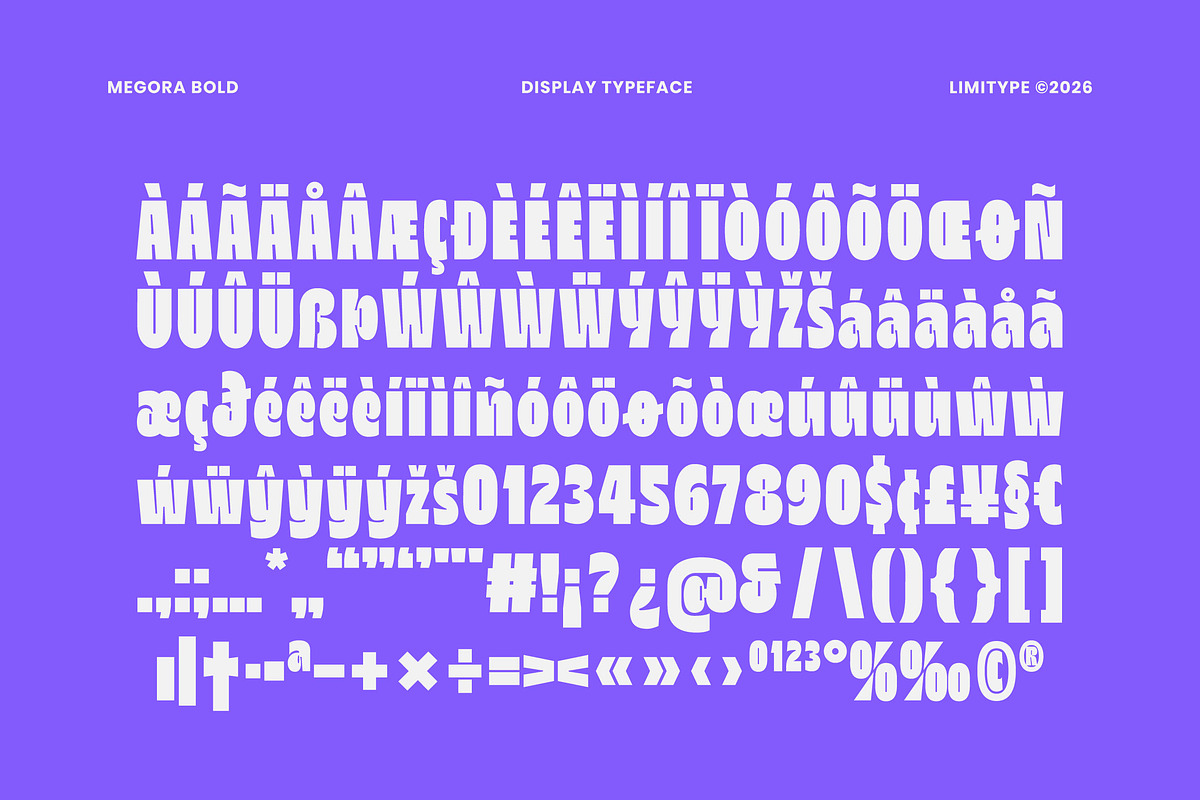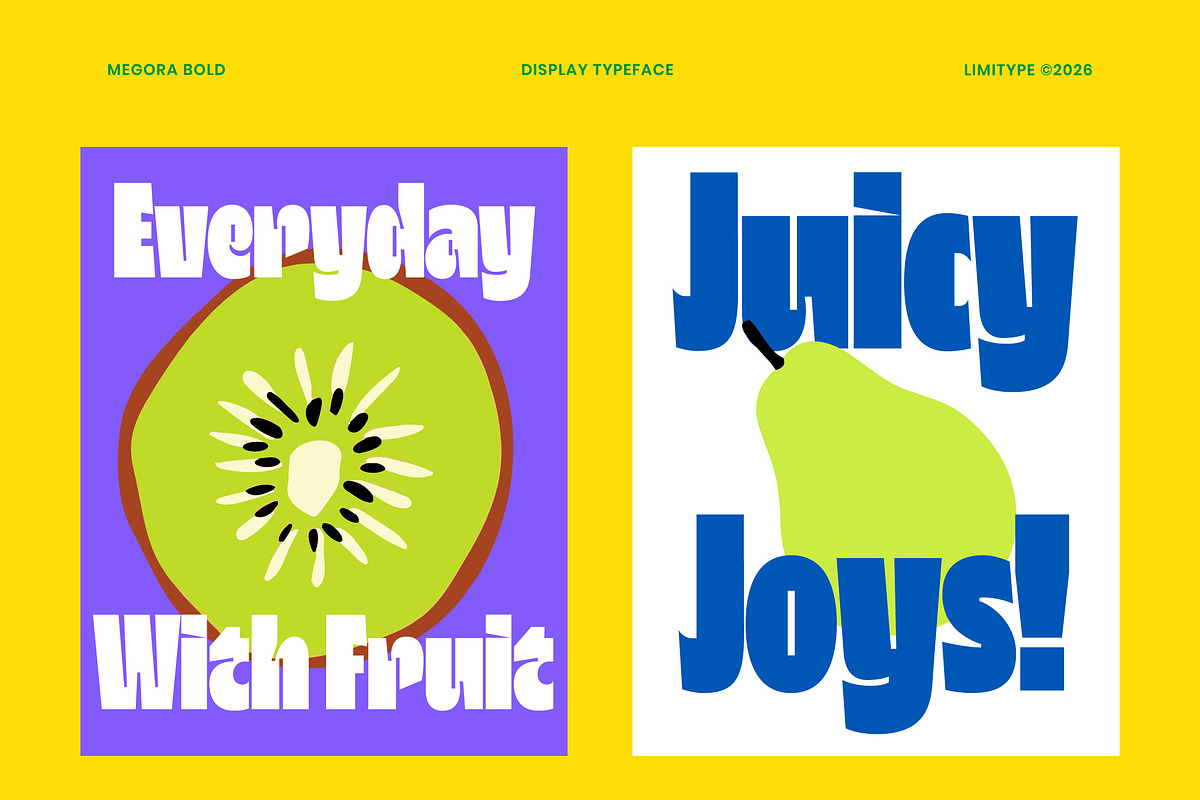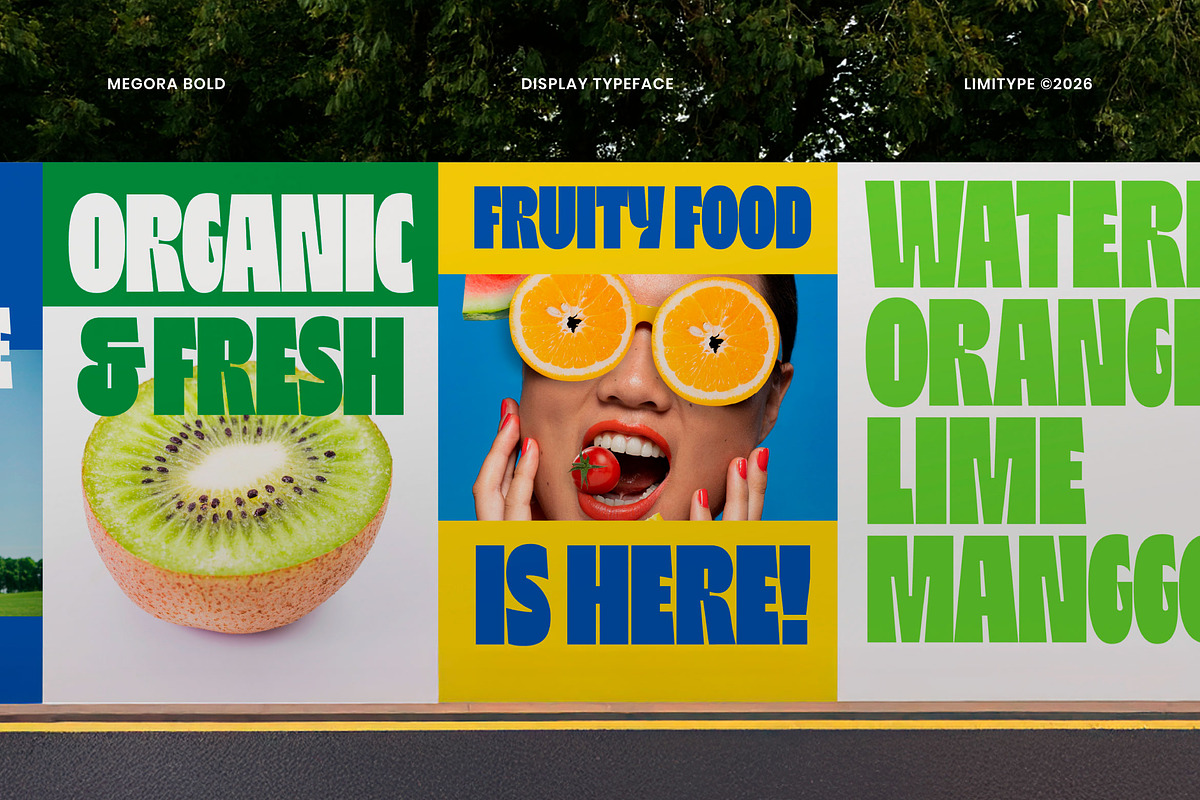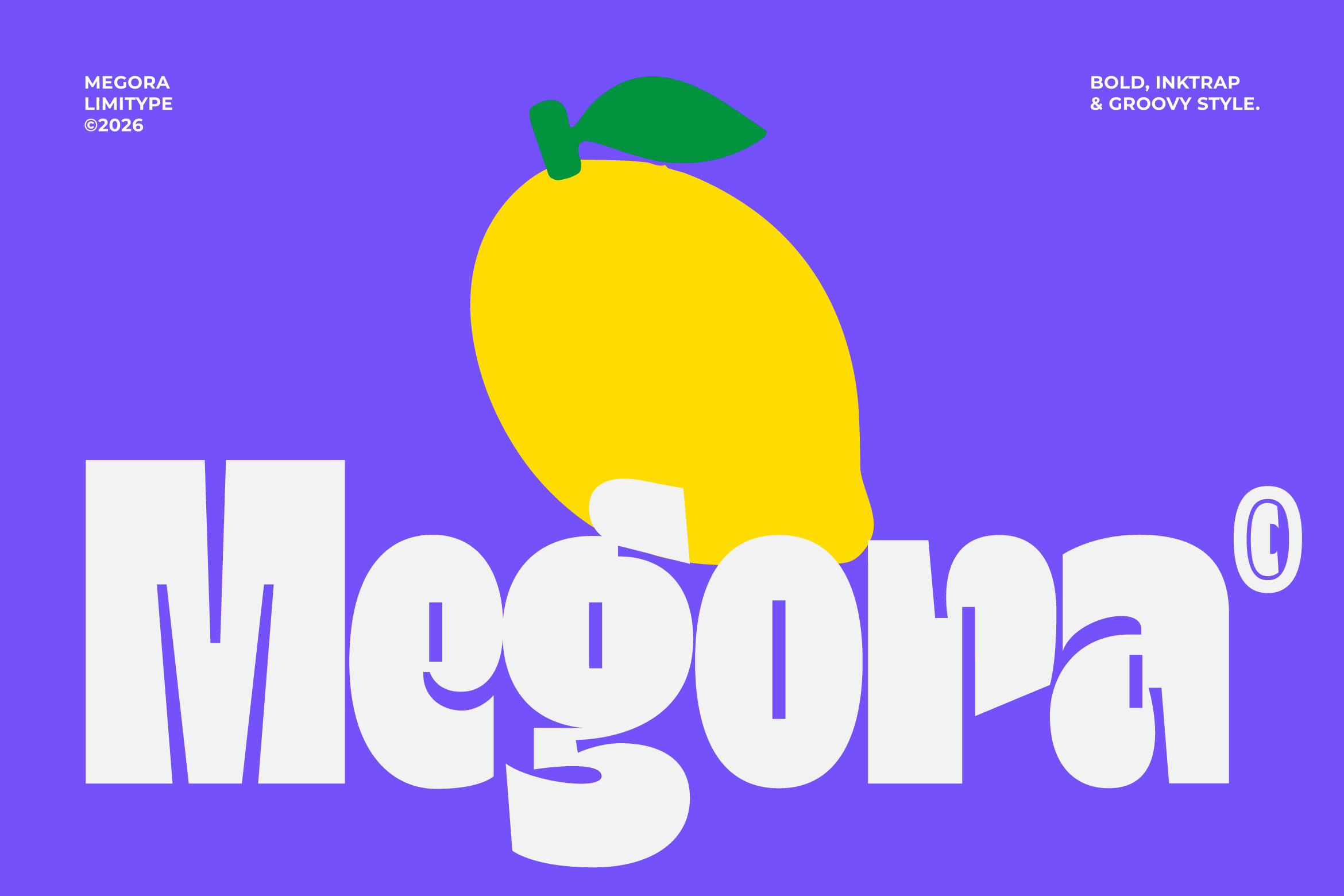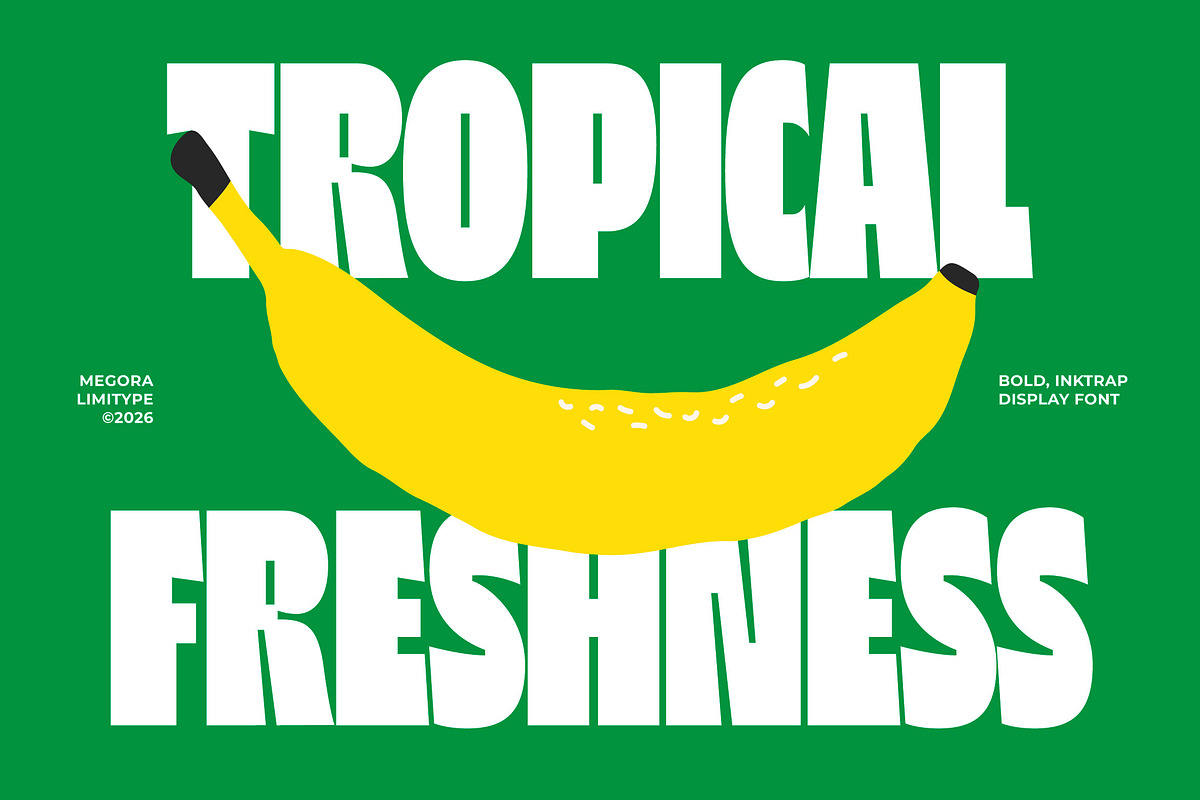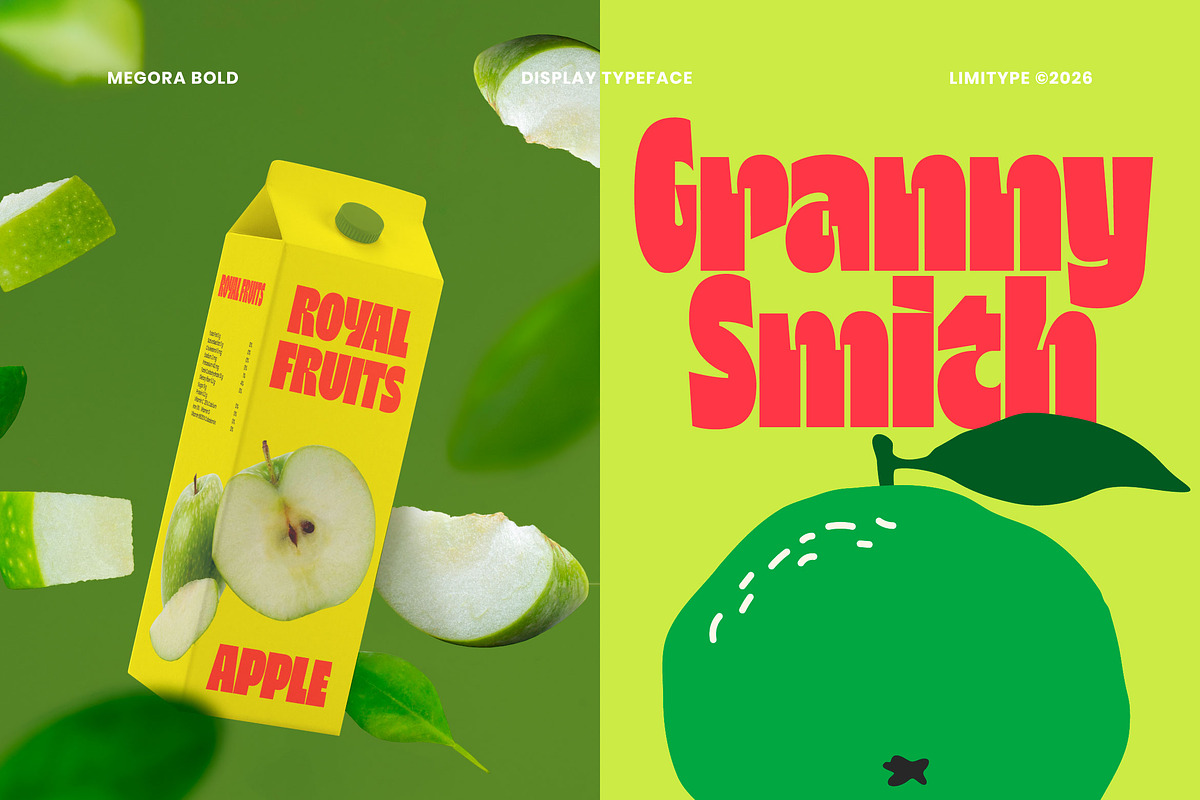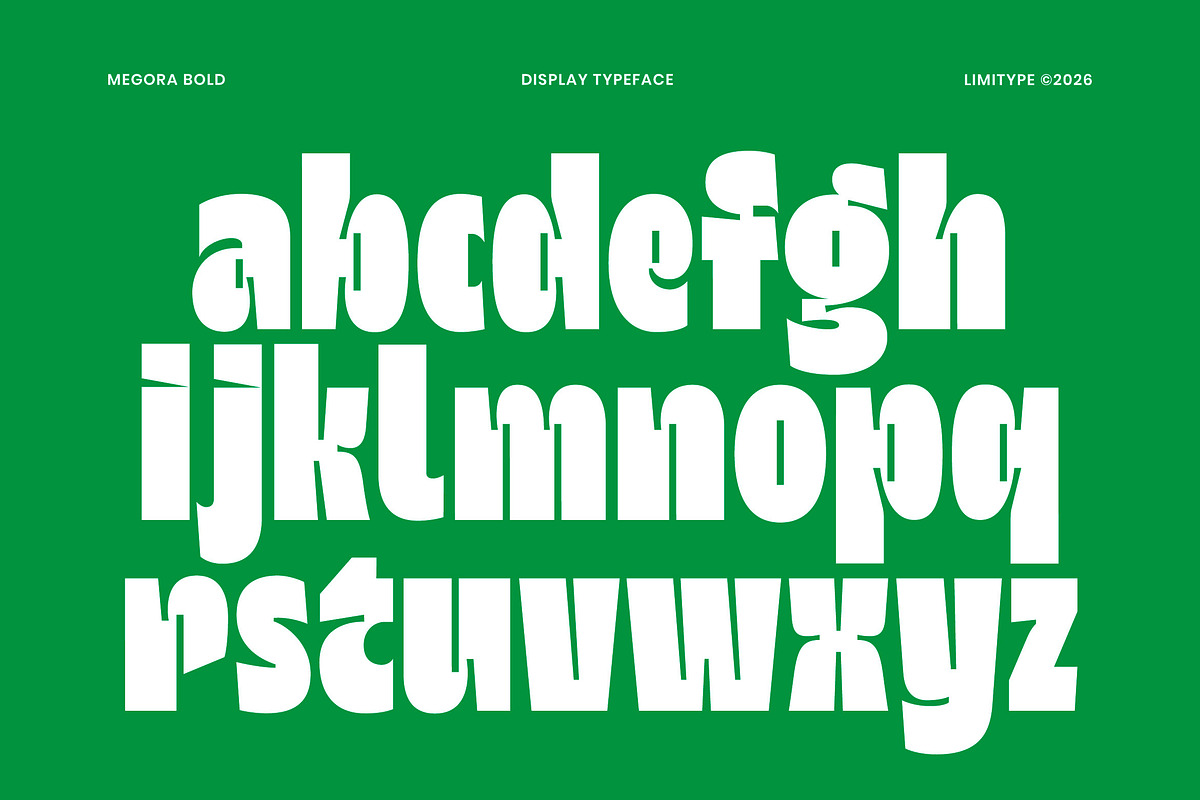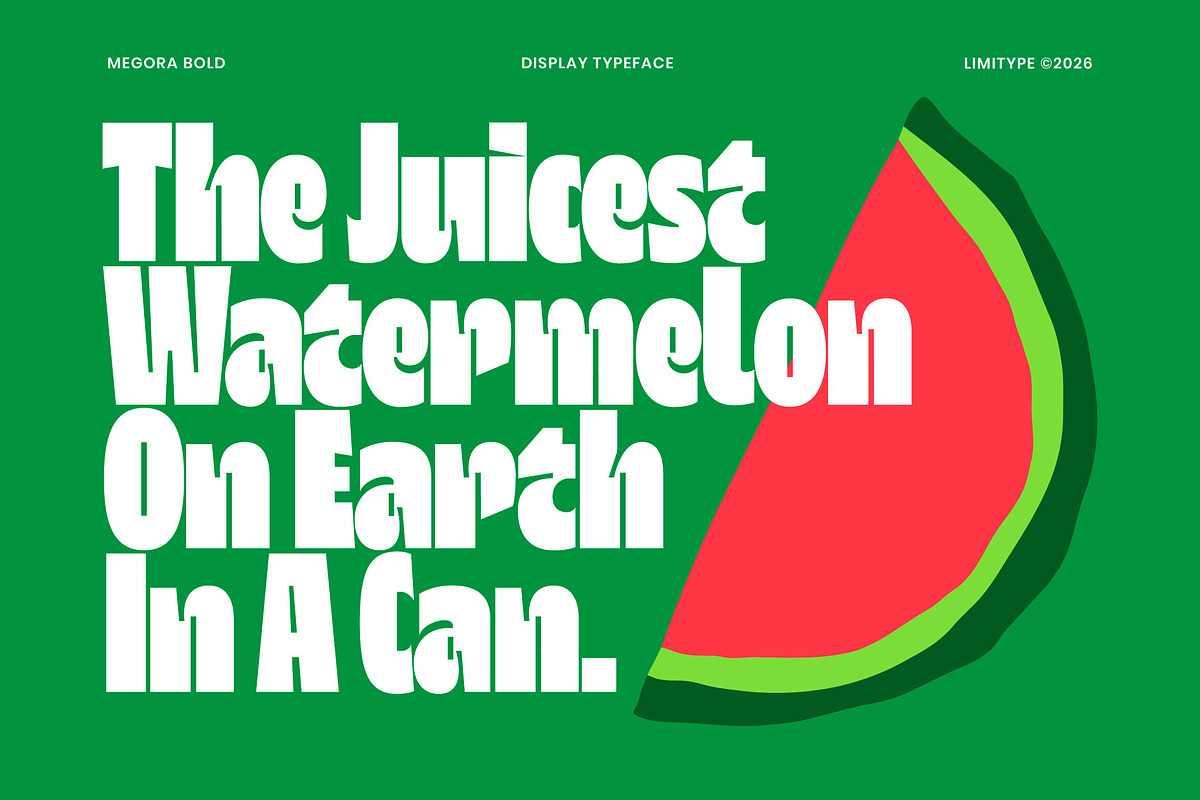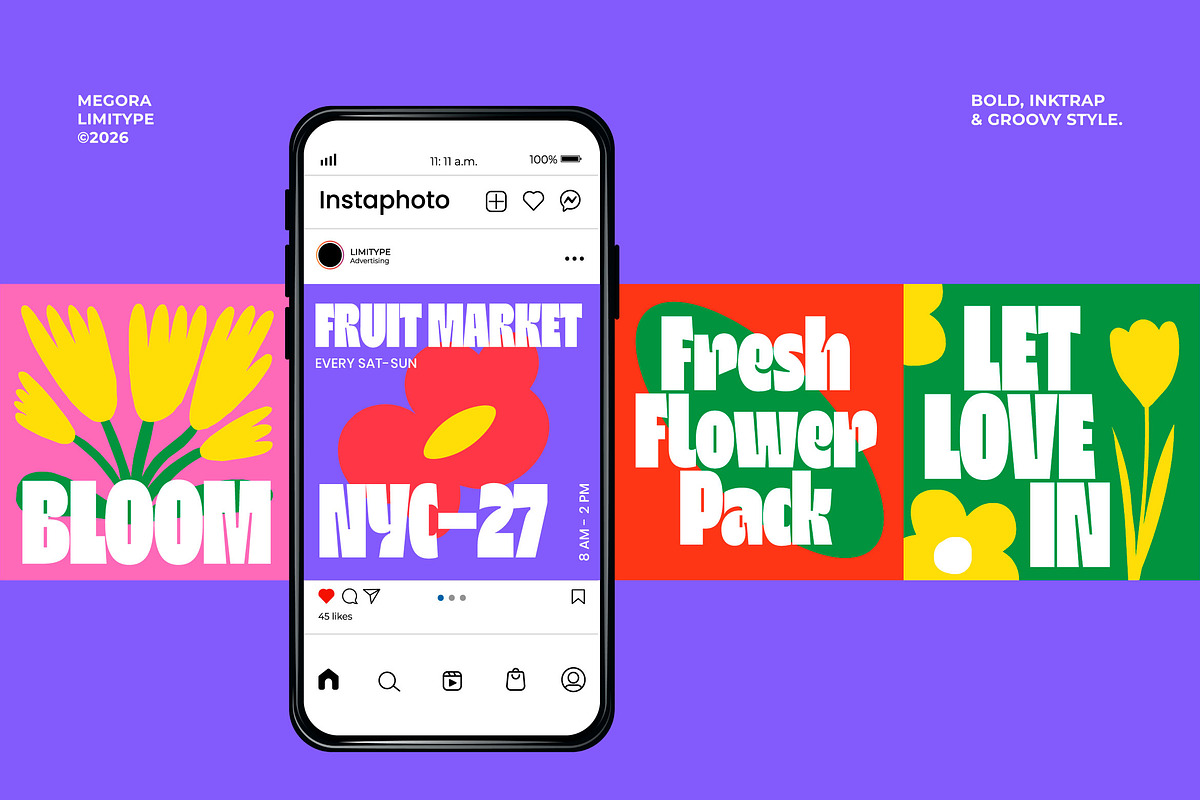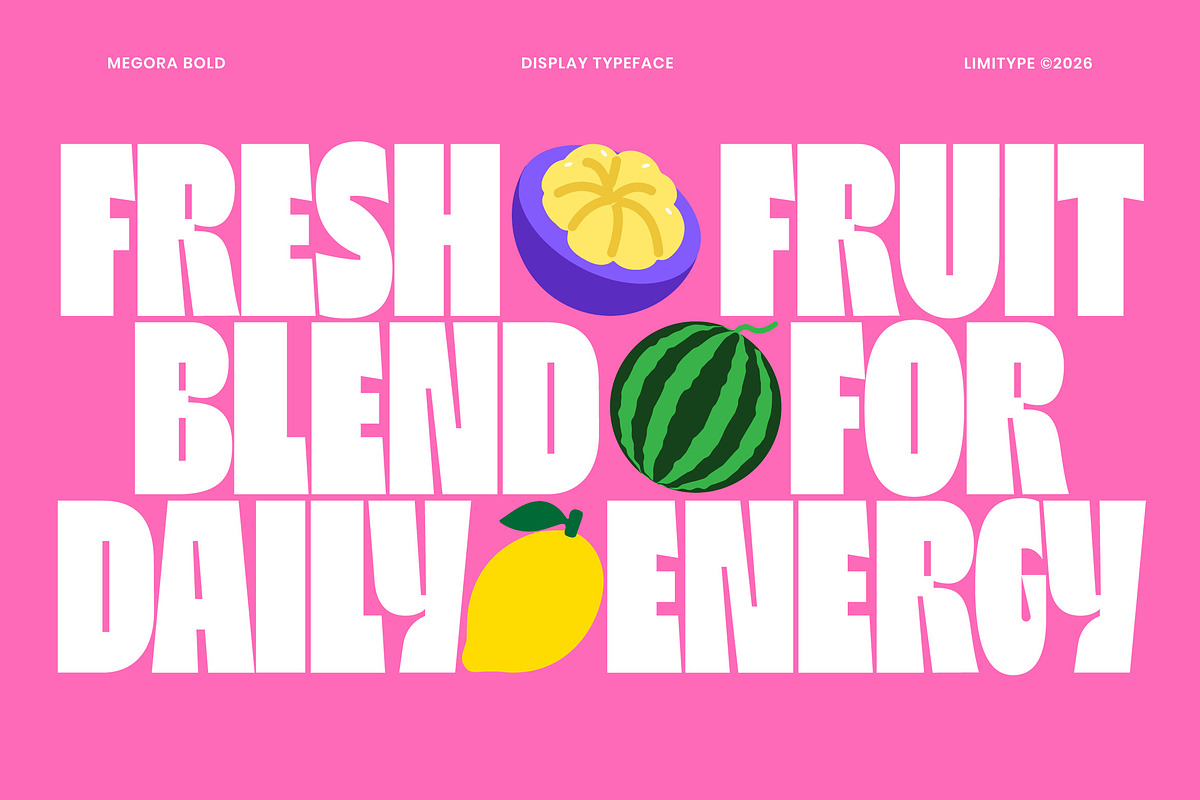
Megora - Bold Inktrap Font
Megora is a bold display typeface featuring distinctive groovy letterforms, tall proportions, and prominent inktrap details. Its thick strokes, sharp cut ins, and sculpted curves create a strong visual presence with a playful character. Designed for high impact typography, Megora Bold is ideal for posters, headlines, branding, logotype, packaging, advertising, editorial designs, and other display typography applications.
Lowercase
Number
Symbol